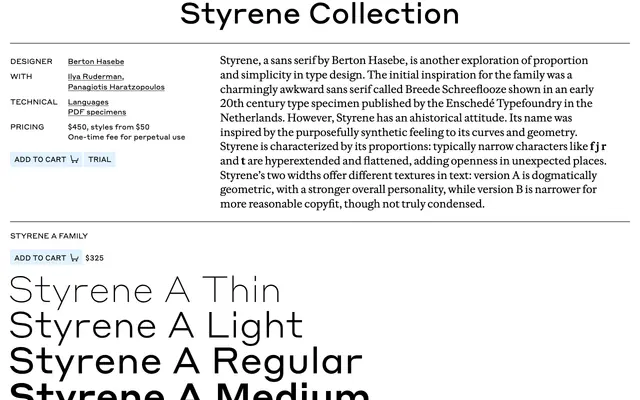
Styrene
Commercial Type · Berton Hasebe · 2016
A two-axis geometric sans by Berton Hasebe pitched against the Avant Garde lineage, with a rounder A cut and a squarer B cut.
A geometric sans from Commercial Type, designed by Berton Hasebe with Ilya Ruderman and Panagiotis Haratzopoulos. Styrene A is the rounder, more familiar cut and Styrene B the squarer, single-storey display companion. Each runs six weights from Thin to Black with matching italics, and the system supports Latin, Cyrillic and Greek. Sits across fashion, art, music and culture work where you want a precise geometric voice with a hint of late twentieth century display.
Commercial Type list Styrene as designed by Berton Hasebe with Ilya Ruderman and Panagiotis Haratzopoulos. A geometric sans drawn against the Avant Garde lineage, with Styrene A as the rounder, double-storey companion and Styrene B as the squarer, single-storey display cut.